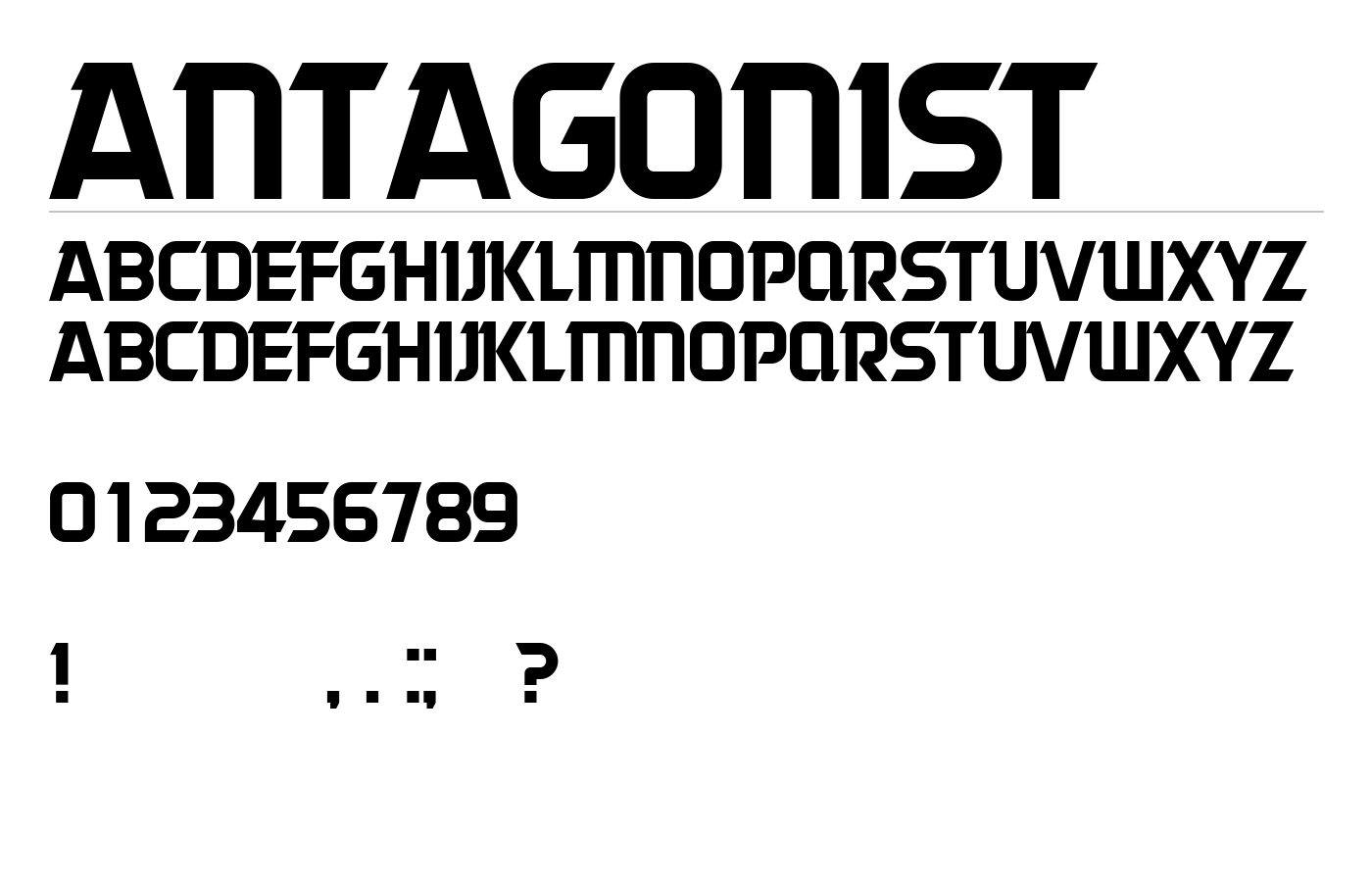
Antagonist is a bold, geometric sans serif font with a striking, angular design that evokes a strong, futuristic vibe. Its tight spacing, sharp edges, and uniform stroke weight make it ideal for impactful headlines, branding, and posters where a modern, edgy feel is desired. This font works well for technology, gaming, and sports-related projects that want to communicate power and assertiveness.
Antagonist Font
About Antagonist Font